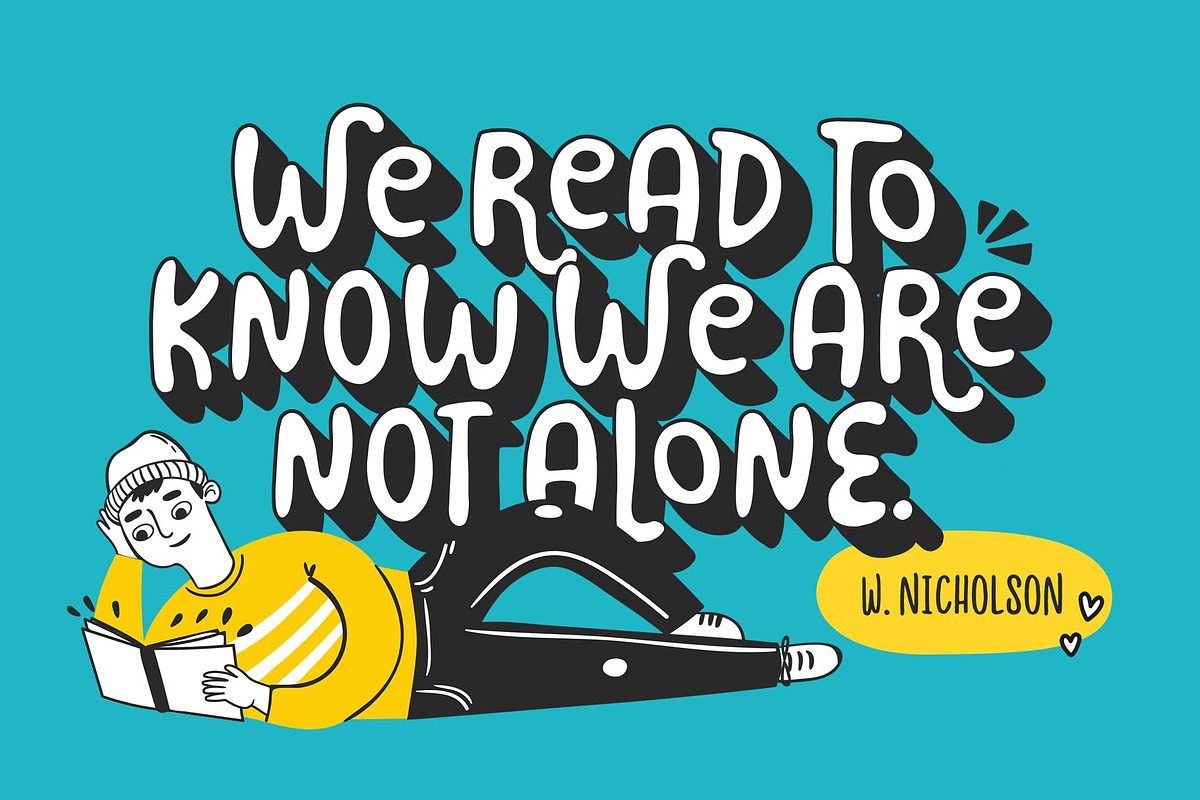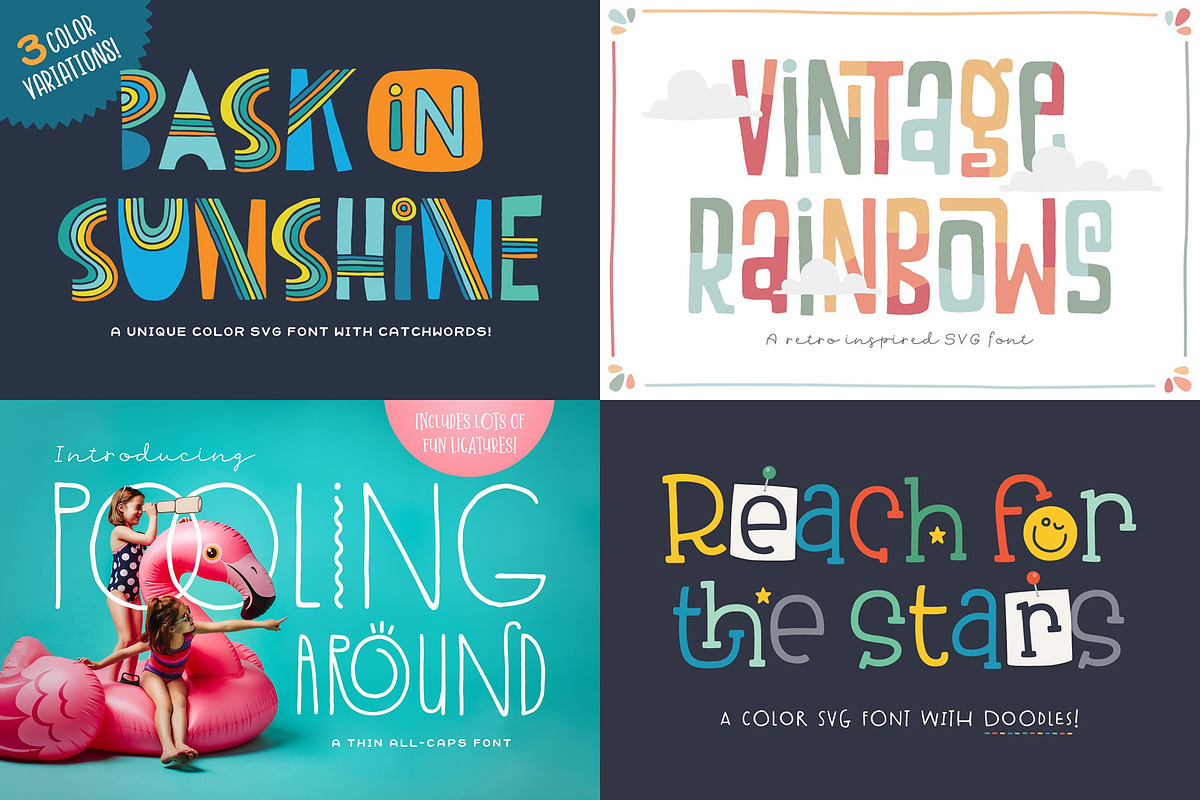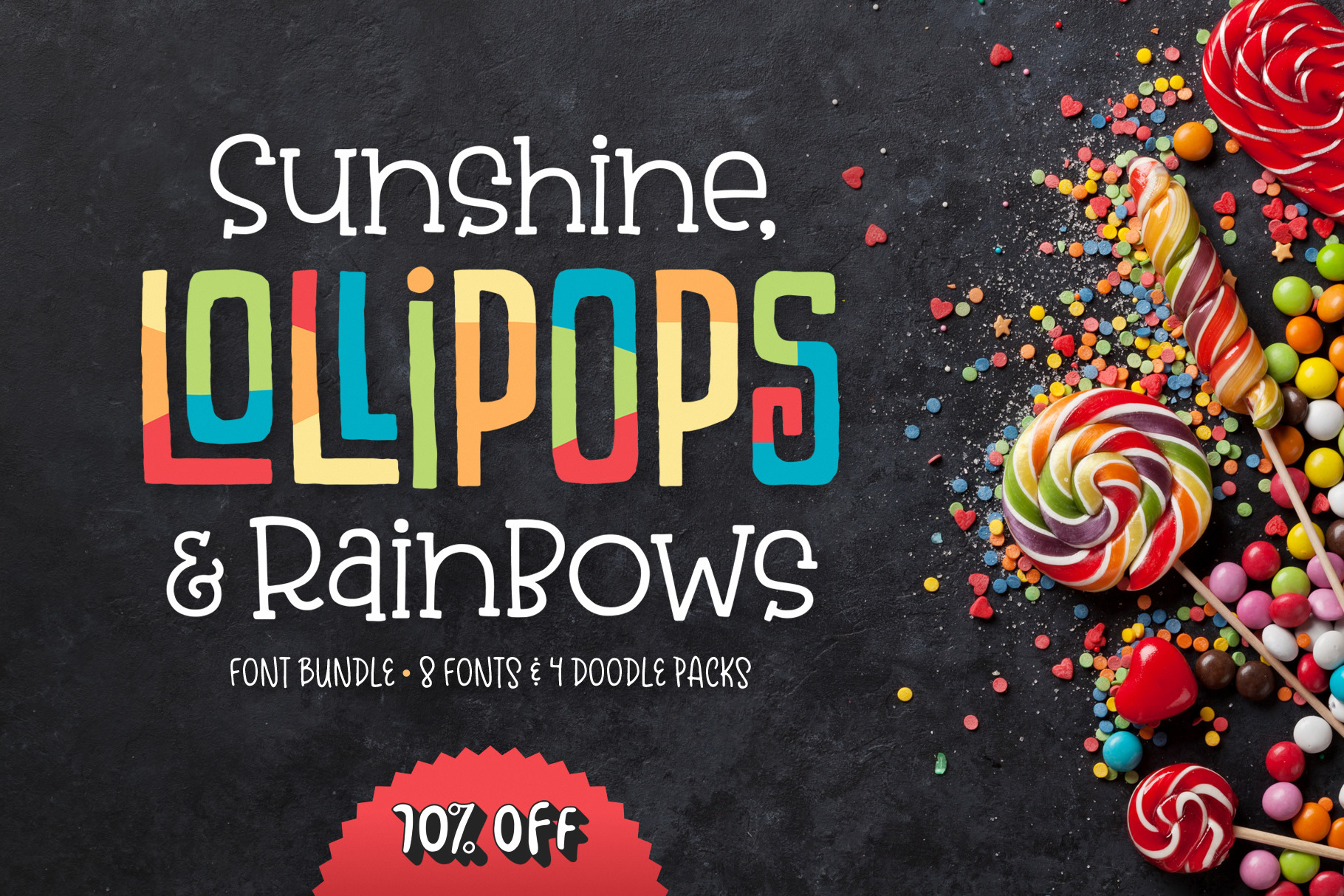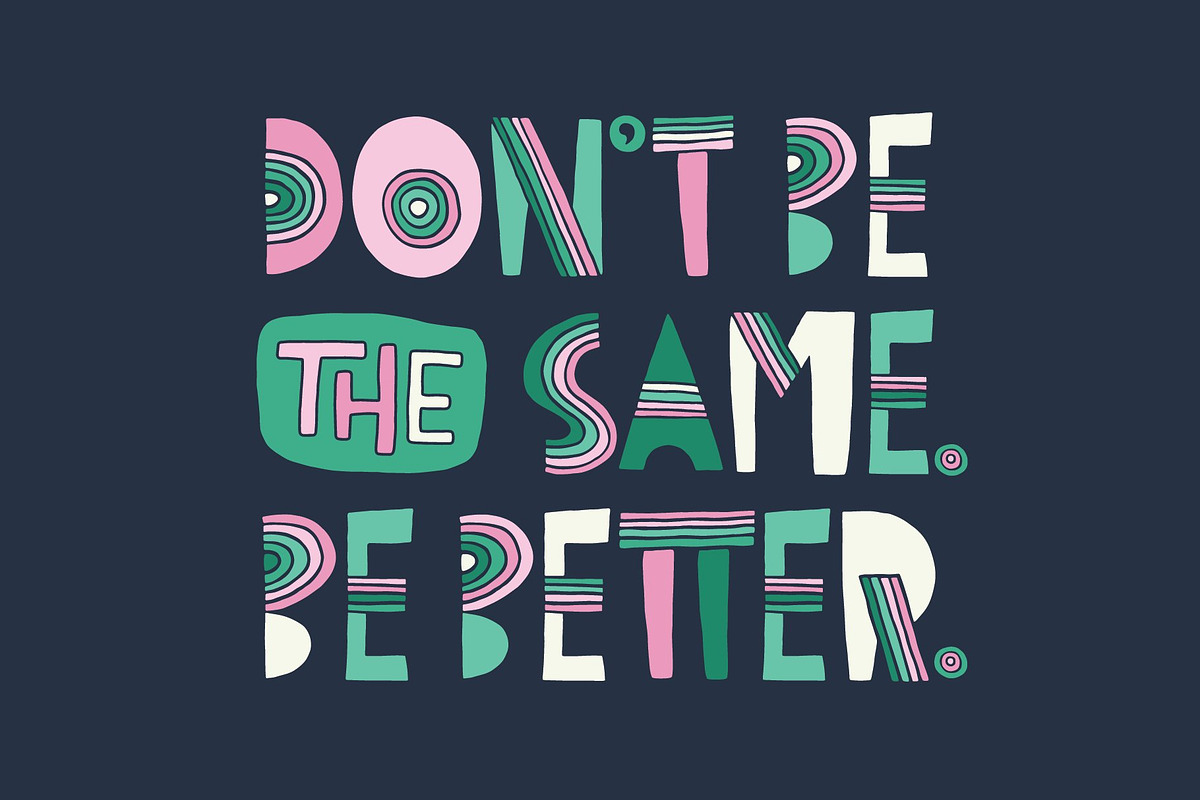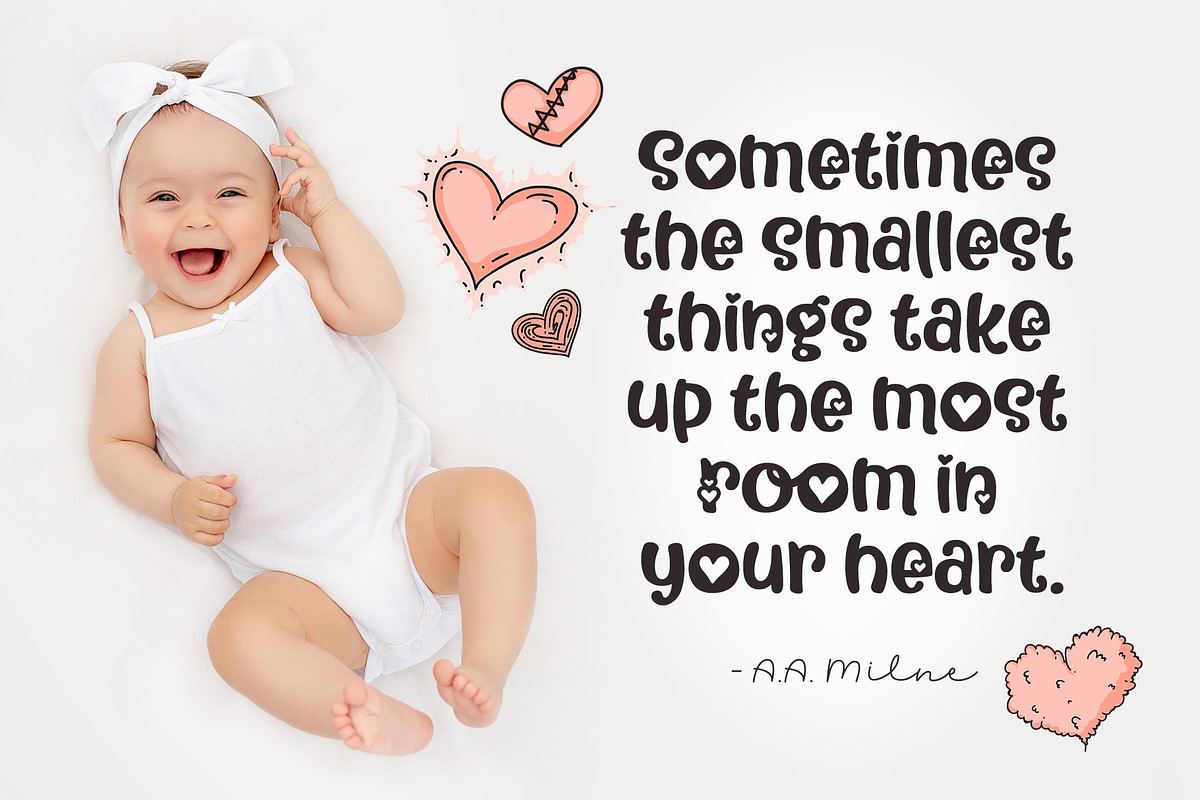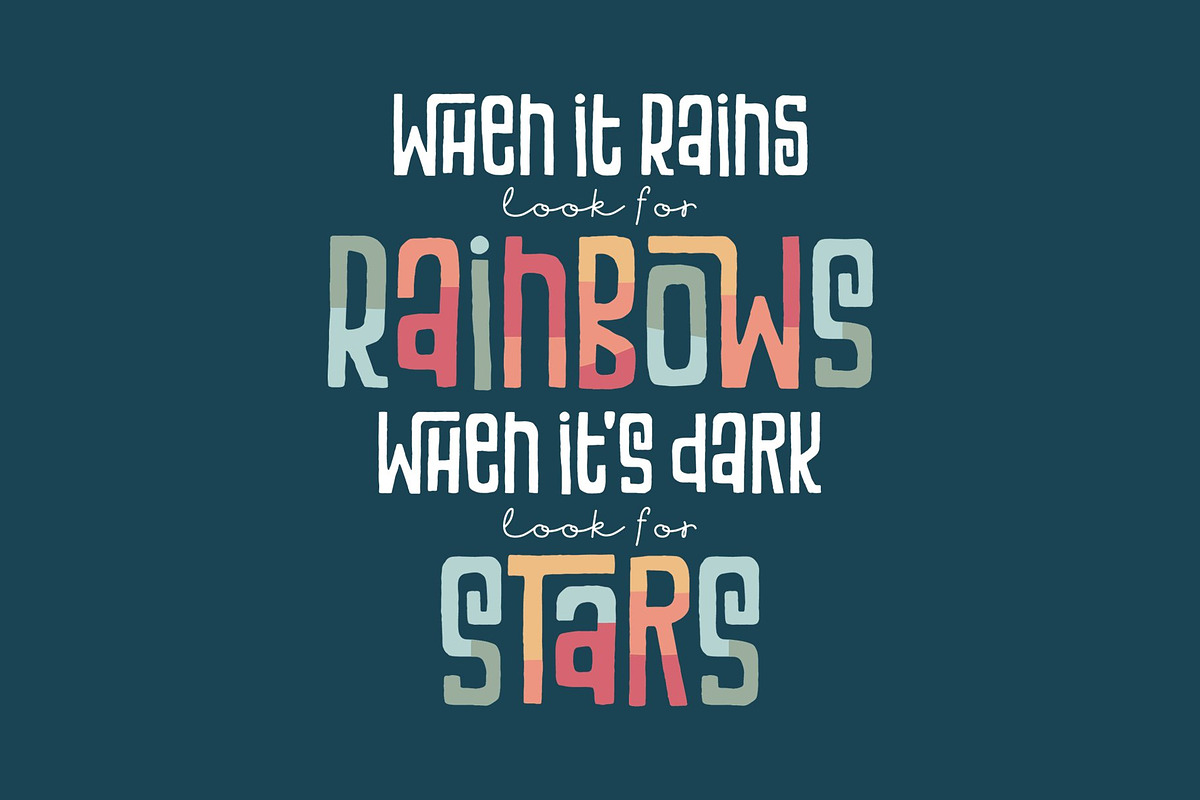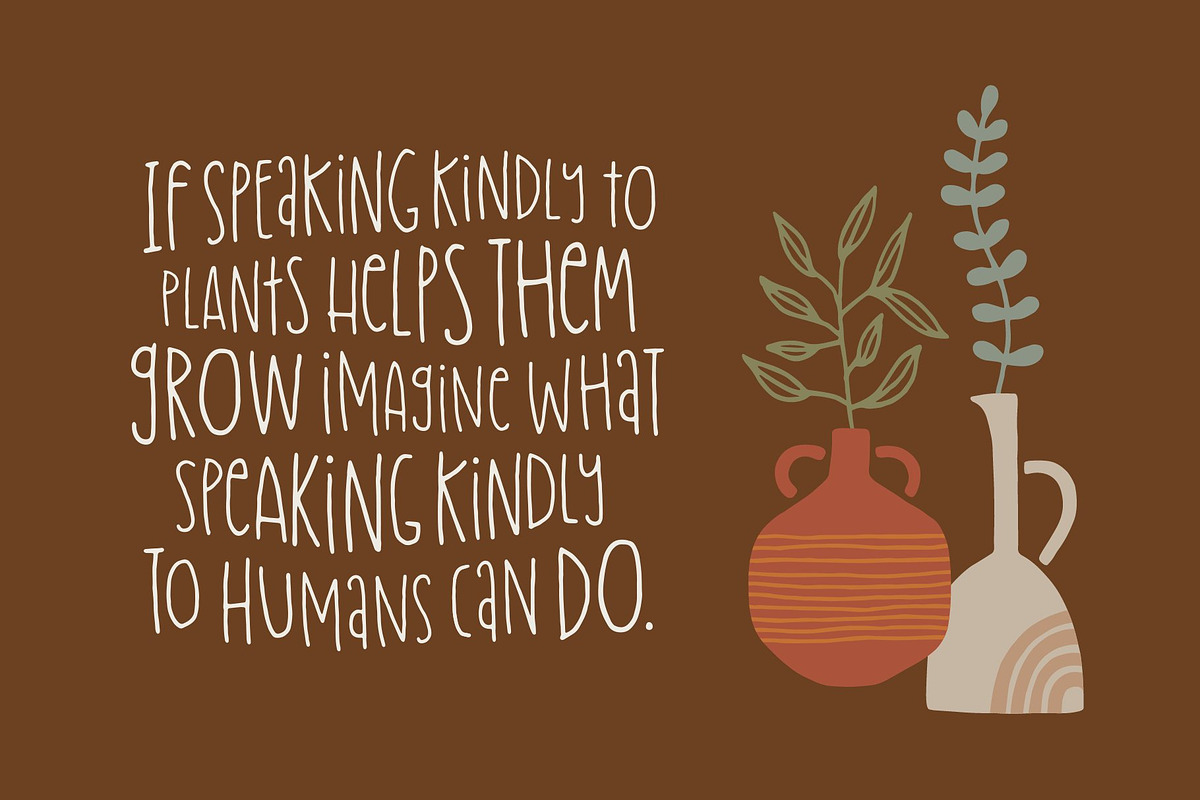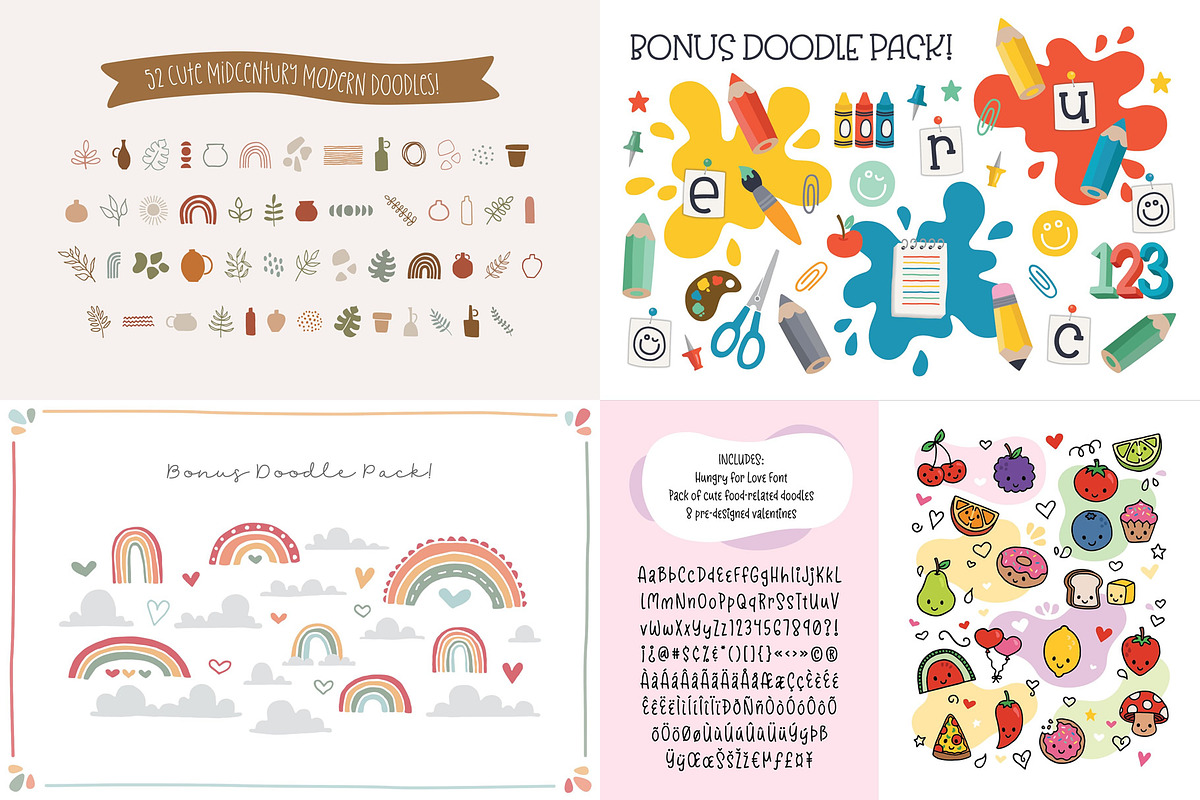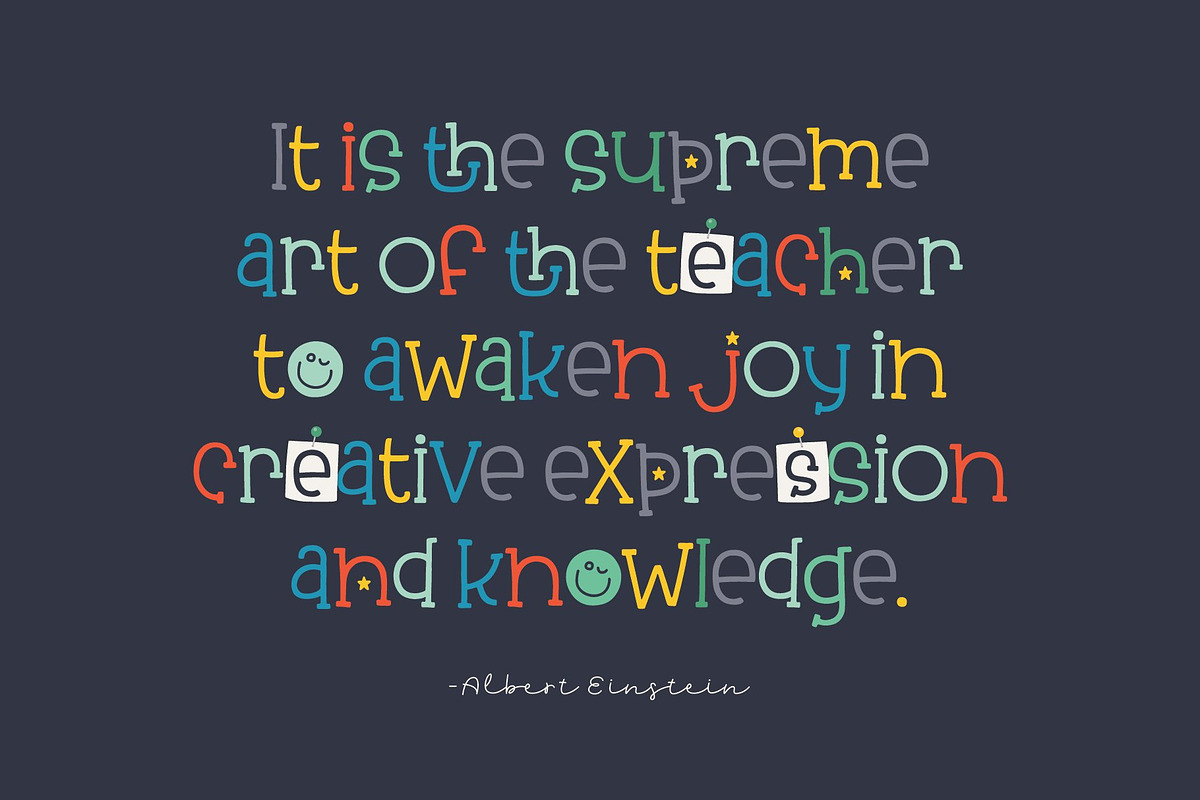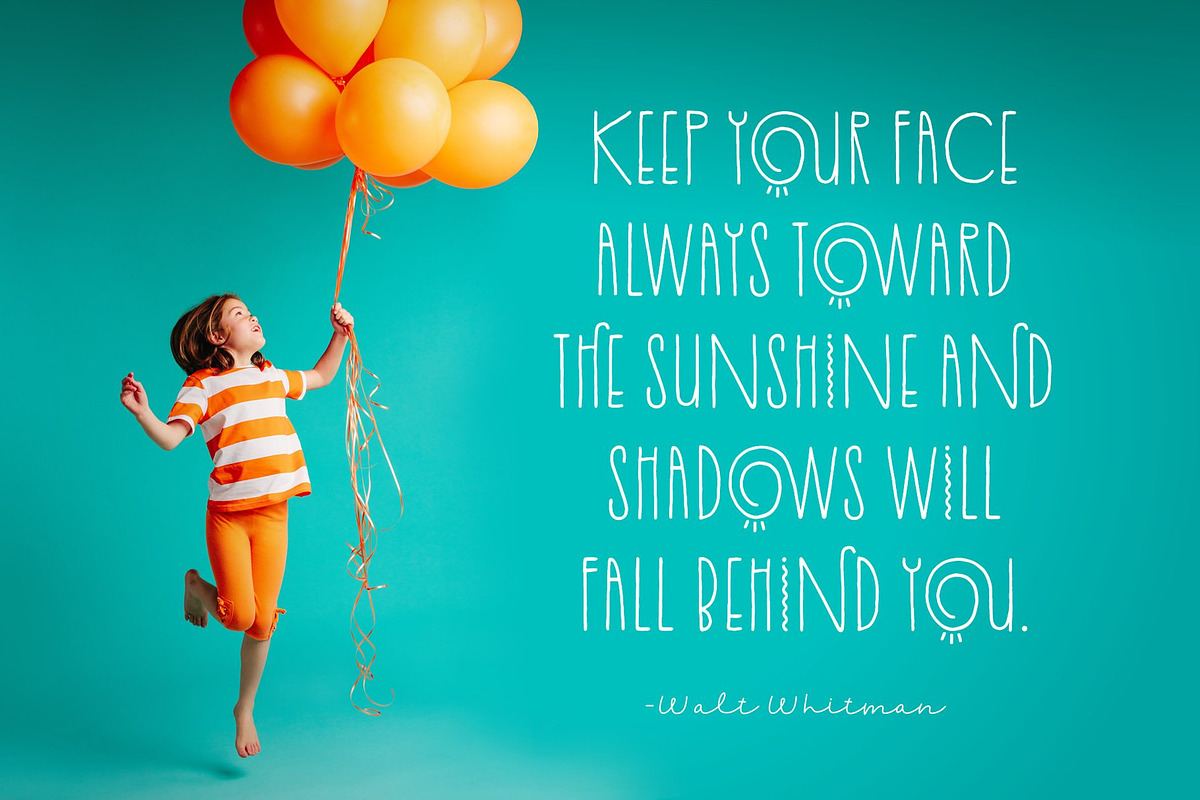
Sunshine & Lollipops Font Bundle
The Sunshine, Lollipops and Rainbows Font Bundle includes everything that is wonderful: 8 adorable, hand drawn fonts and 4 doodle packs at 70% off!